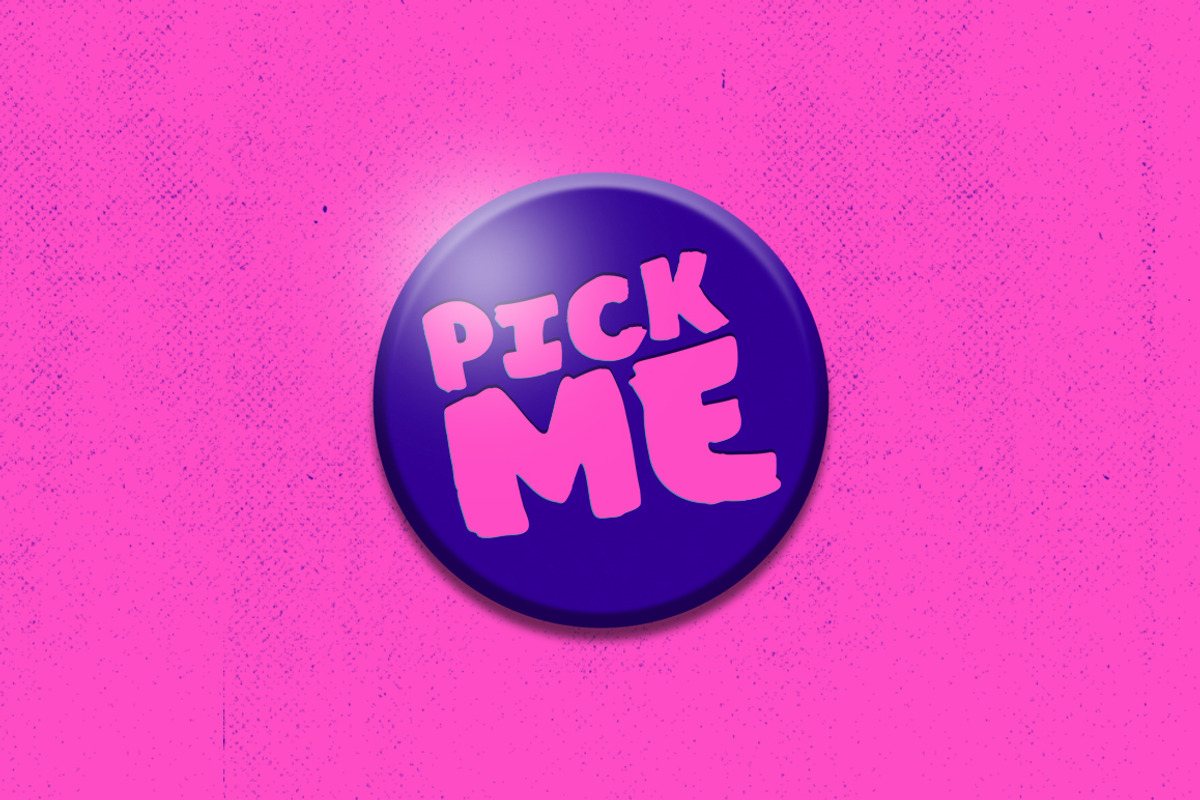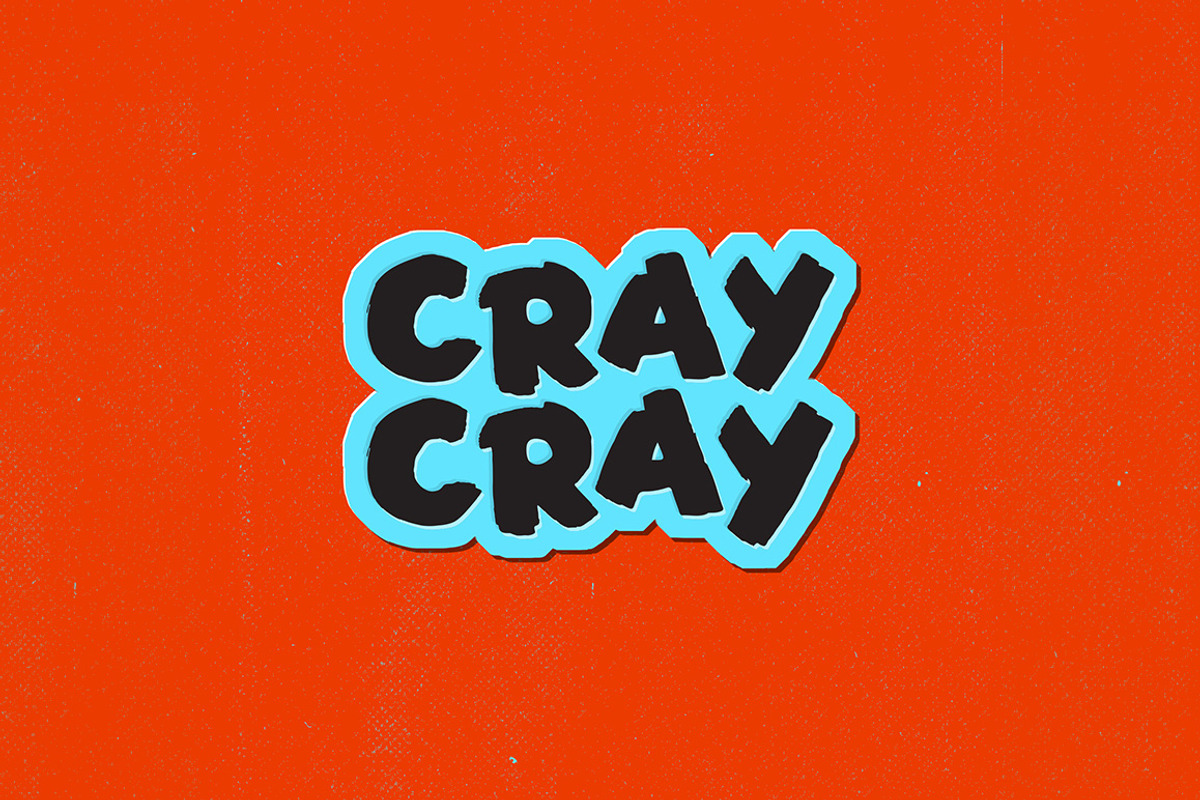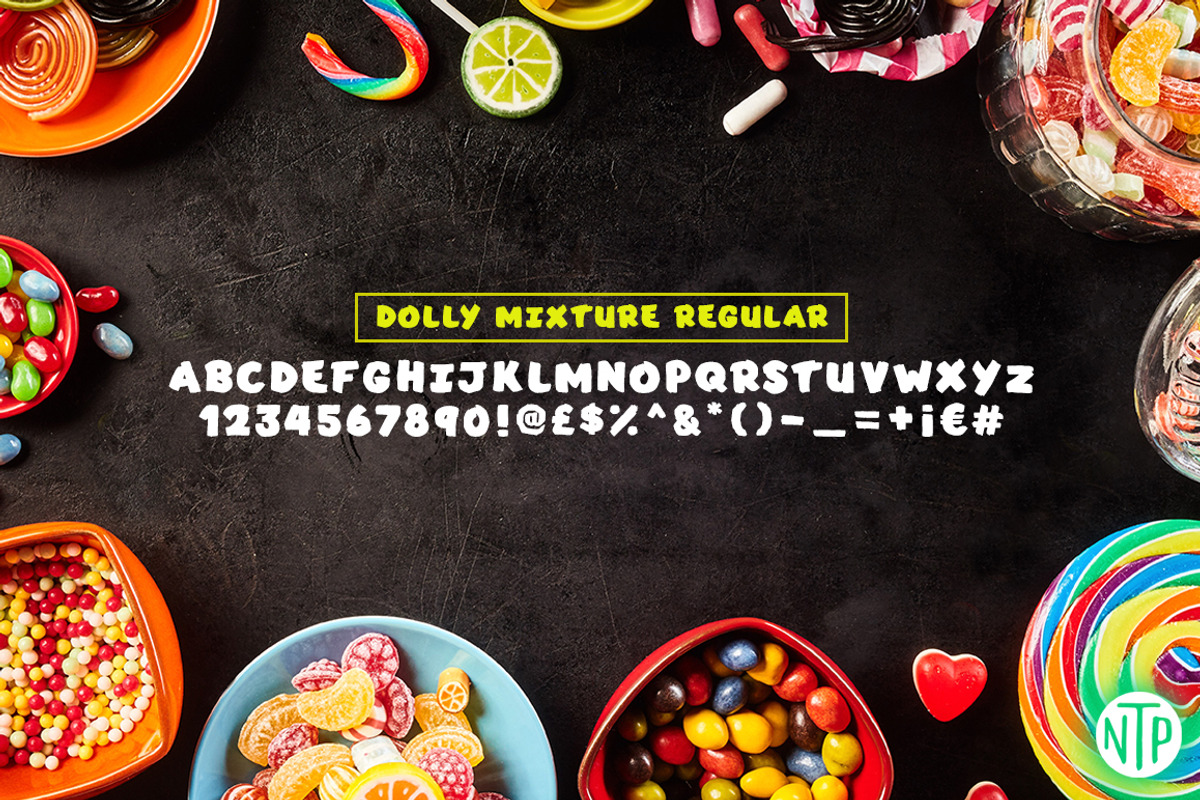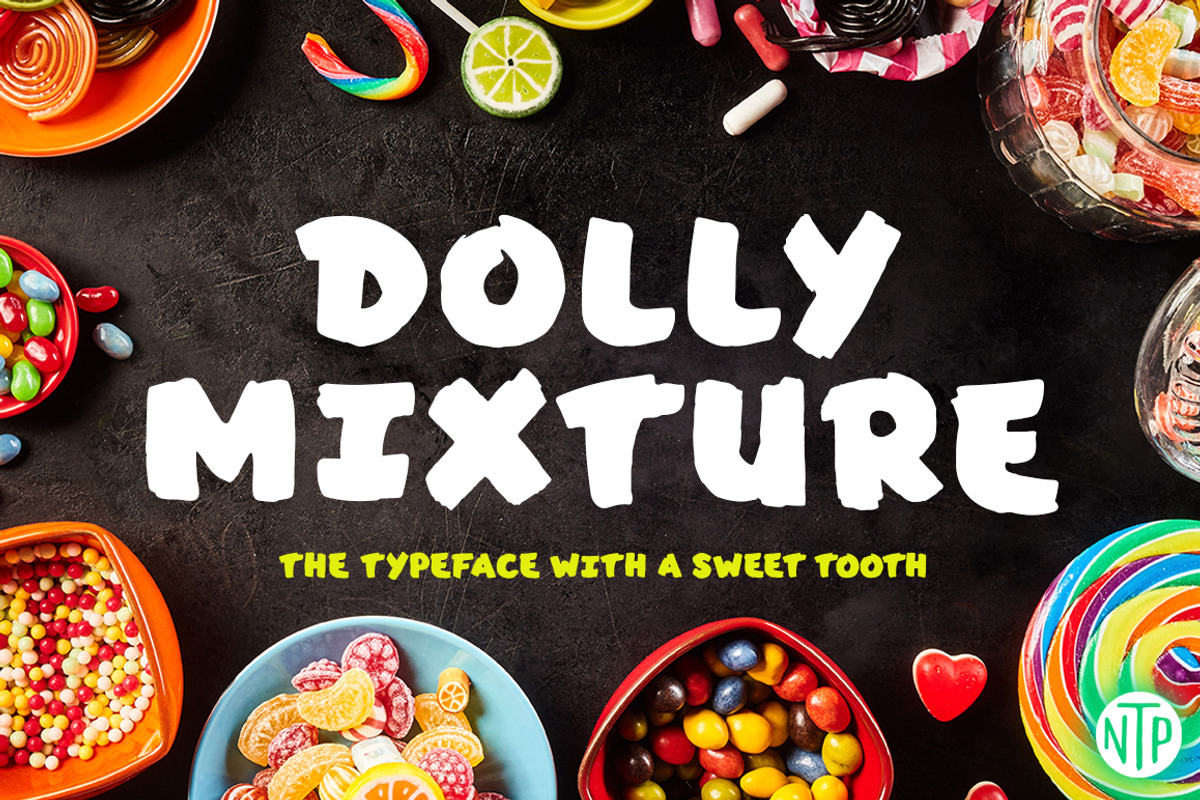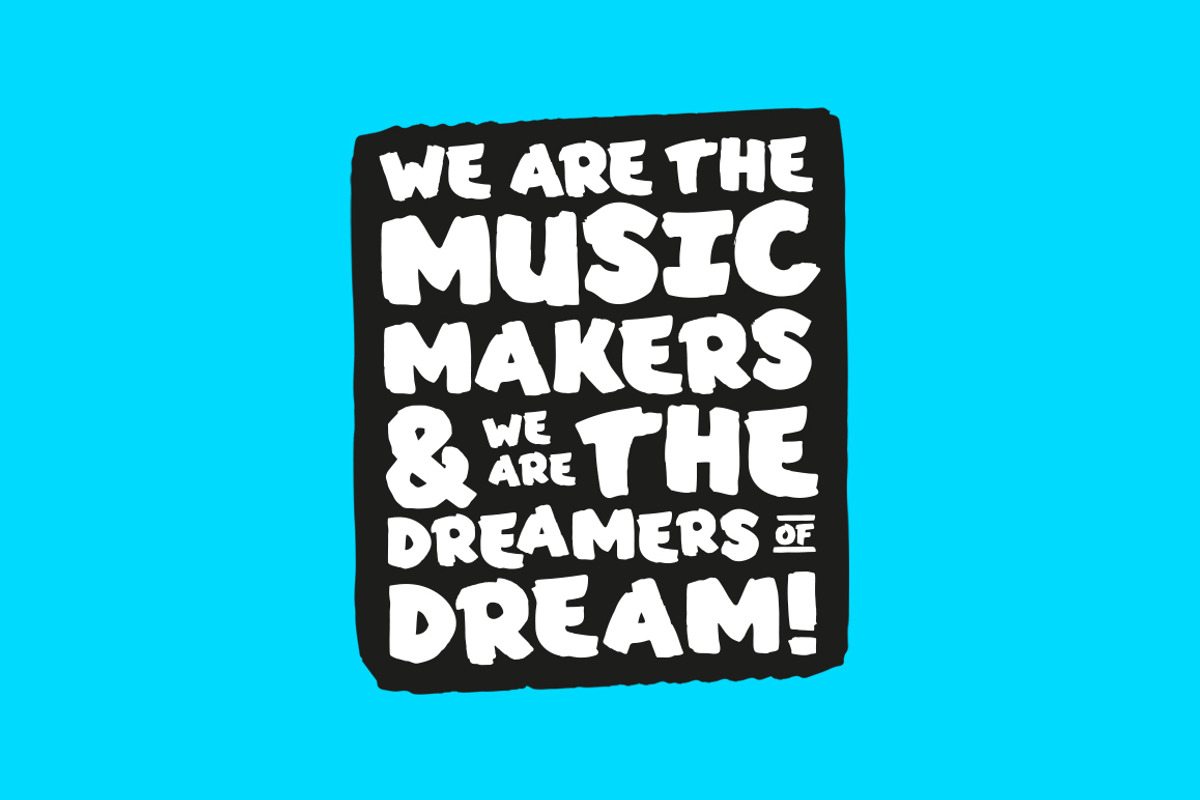
Dolly Mixture font
Dolly Mixture font by Neil Tony Porter is a font selected for branding, posters, packaging, typography.
- Dolly Mixture Regular
- Dolly Mixture Textured Regular
Why Dolly Mixture font is worth a look
Dolly Mixture font by Neil Tony Porter fits naturally into Branding, posters, packaging, typography.